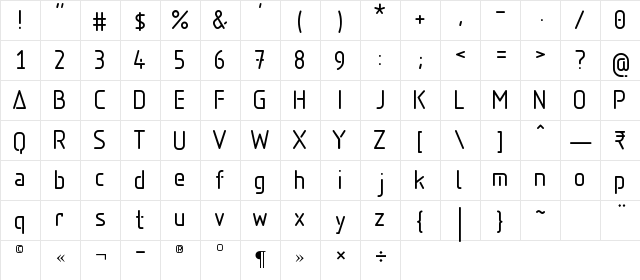
Aadhunik Regular
| Designer | Hareesh Seela |
Design Context for Aadhunik Typeface
Aadhunik is a composed and adaptable typeface that performs quietly and consistently across a wide range of design contexts.